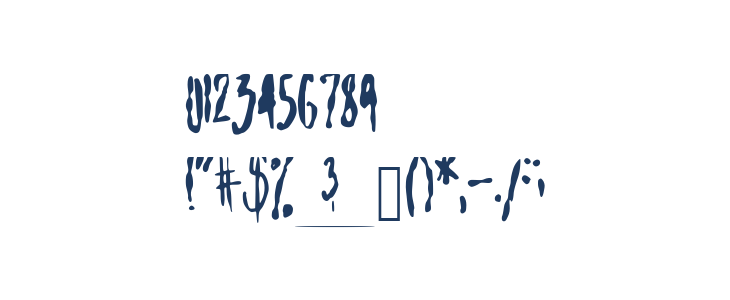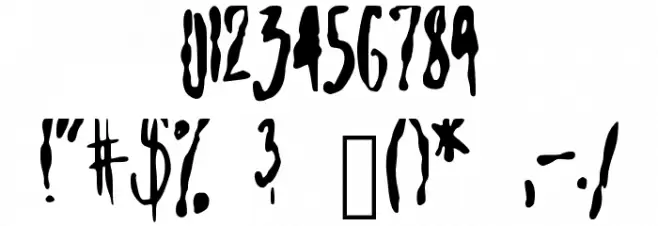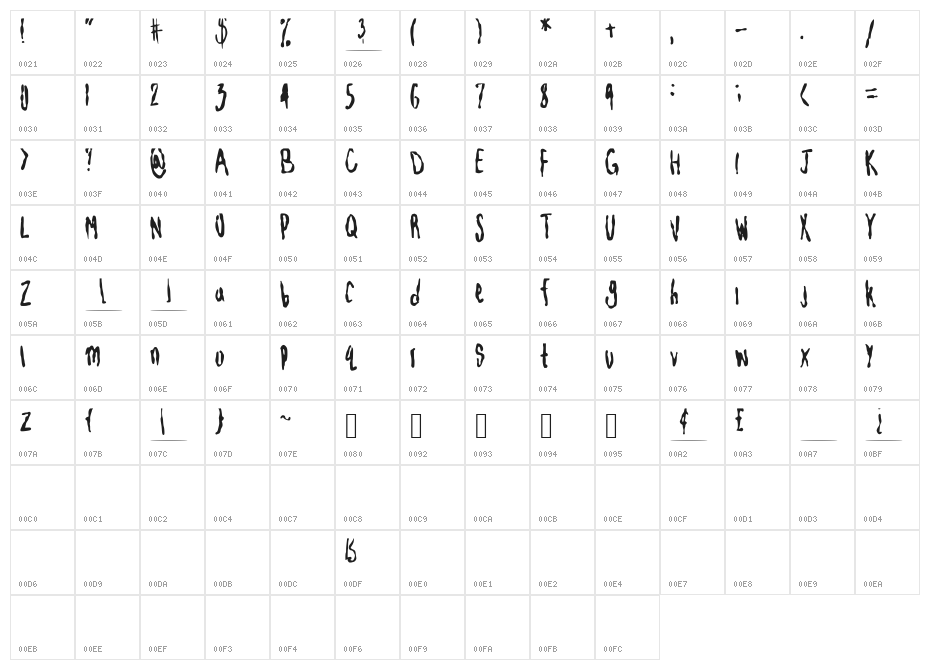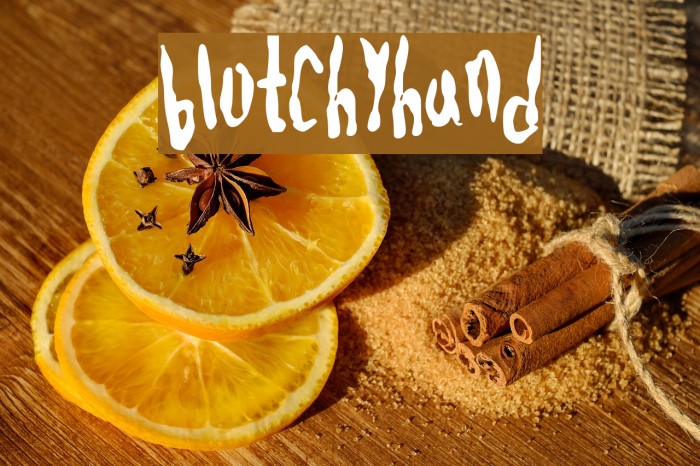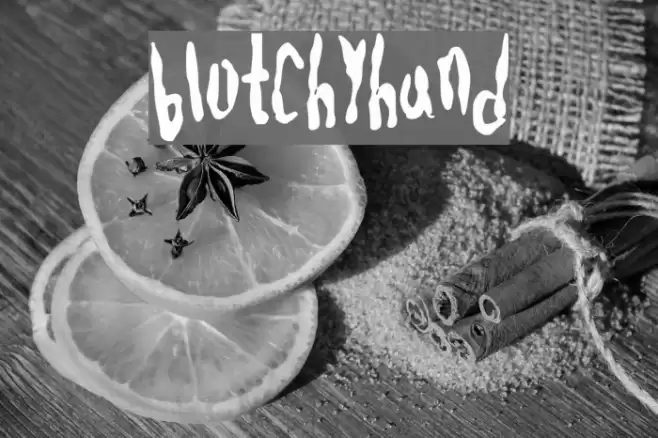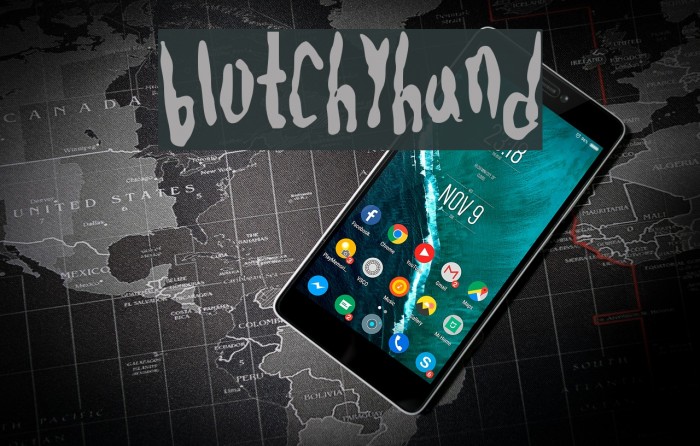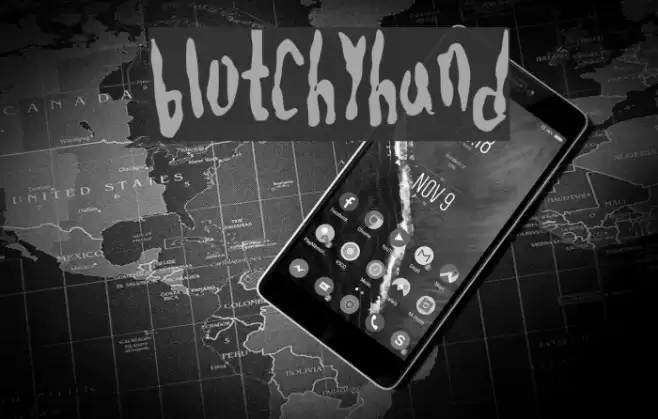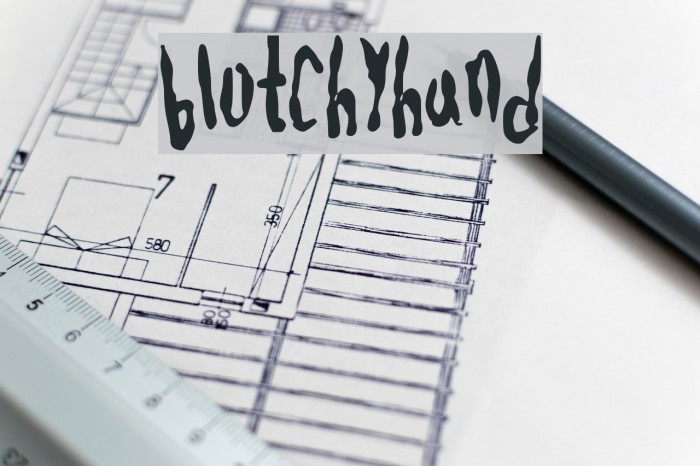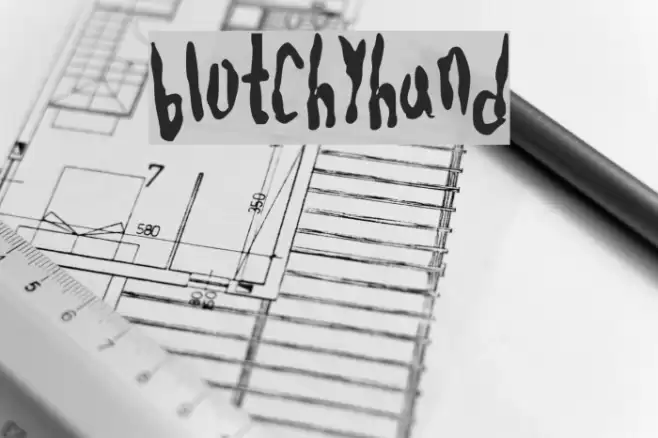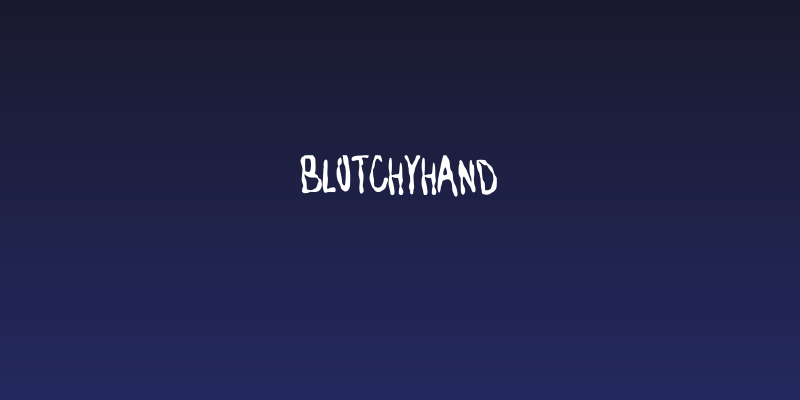
blotchyhand Font
blotchyhand Description
This font features a unique, hand-drawn style with irregular, blotchy edges that give it a distinctive, organic appearance. The characters are bold and uneven, creating a sense of movement and energy. The uppercase and lowercase letters maintain a consistent style, with a playful and artistic flair. Numbers and special characters follow the same design, ensuring a cohesive look across all text. The font's irregularity and boldness make it stand out, perfect for projects that require a touch of creativity and individuality.
| Proposed Projects | Ideal for creative projects such as posters, album covers, and artistic branding. |